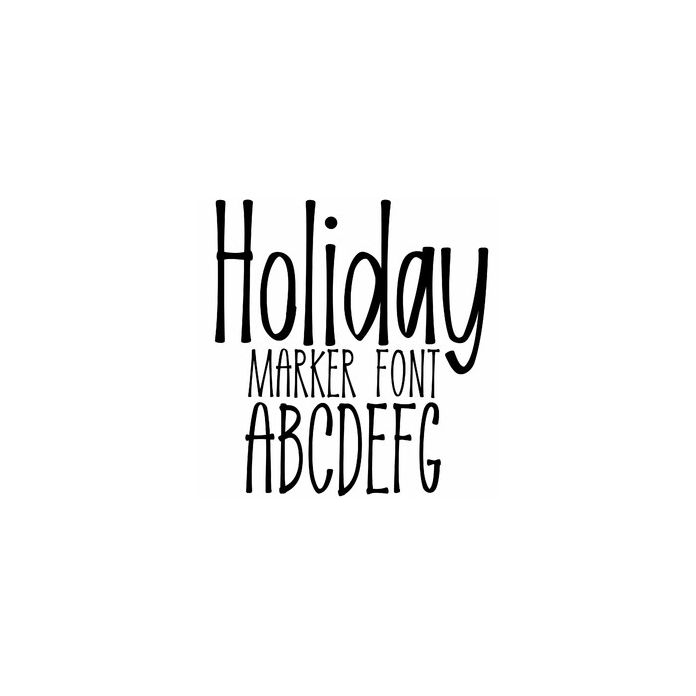
This handwriting marker font is fun for Holiday crafts, gifts, planners, notes, and personalization projects. Includes alphabet, numbers, and punctuation.